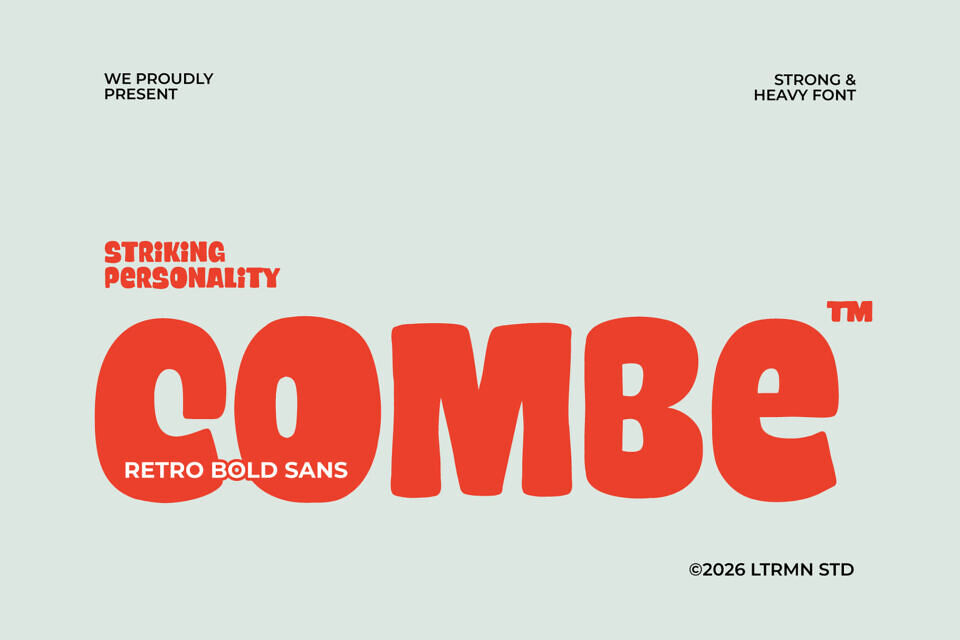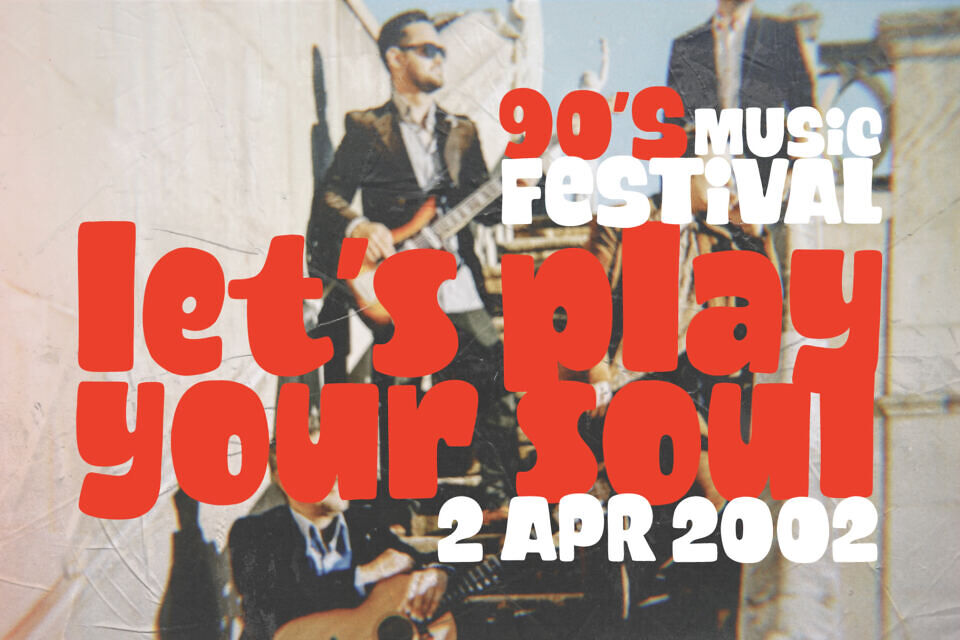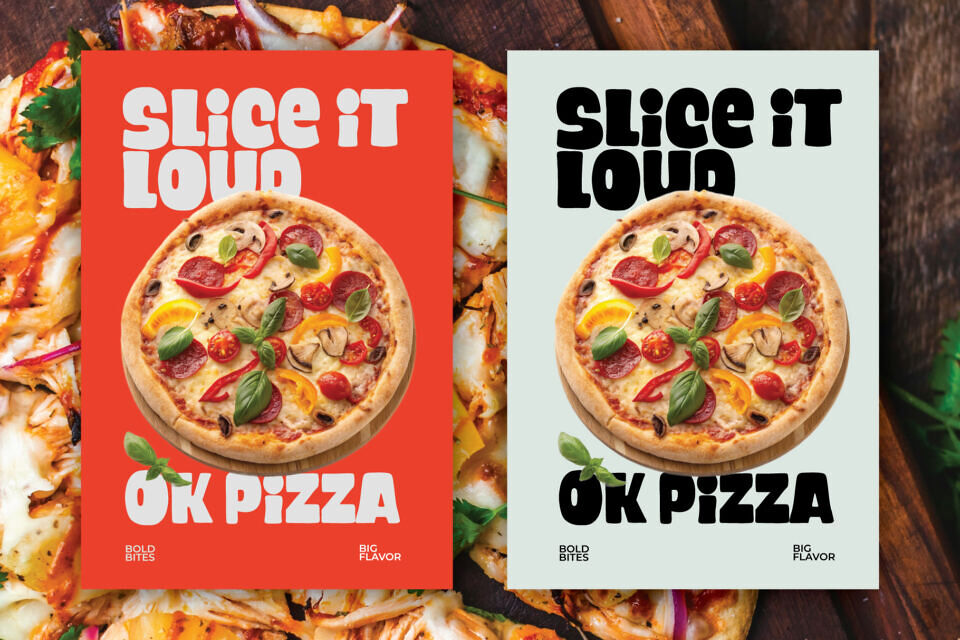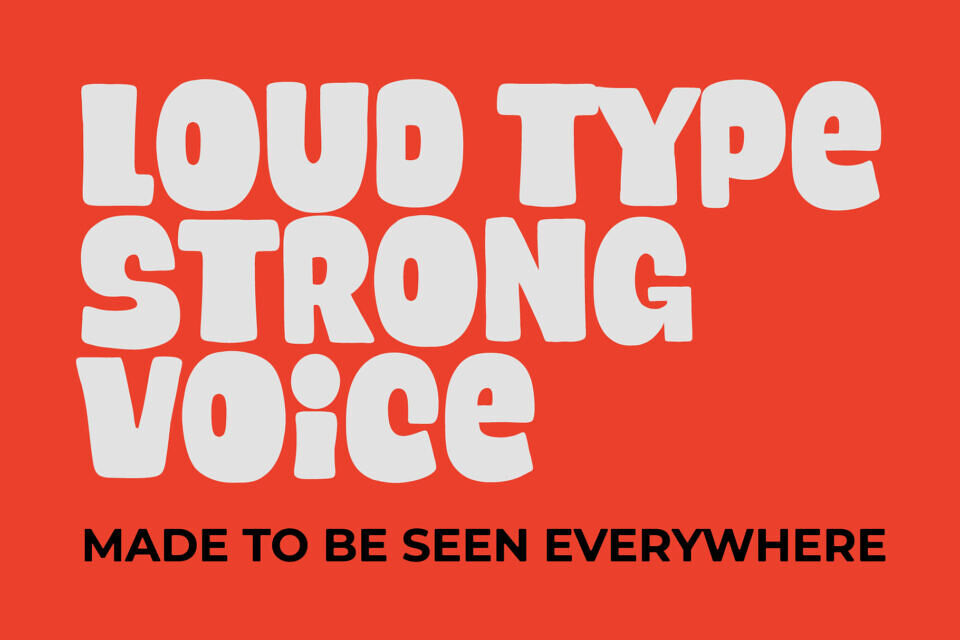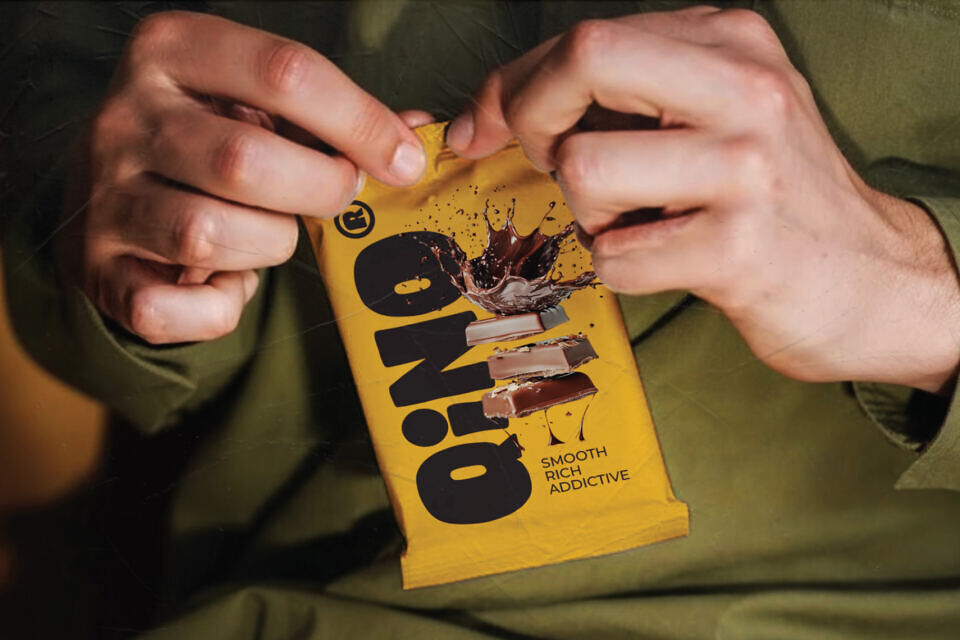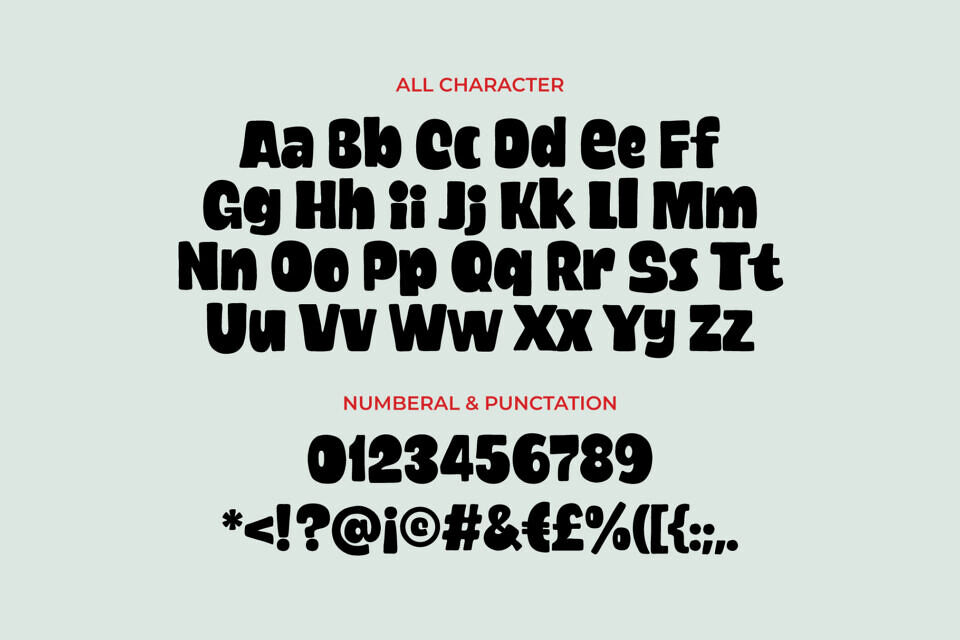
Combe is a retro bold sans serif font with thick, heavy letterforms and a playful striking personality. Designed to make a strong visual statement, this typeface features soft curves and chunky shapes that create a fun, bold, and eye-catching presence.